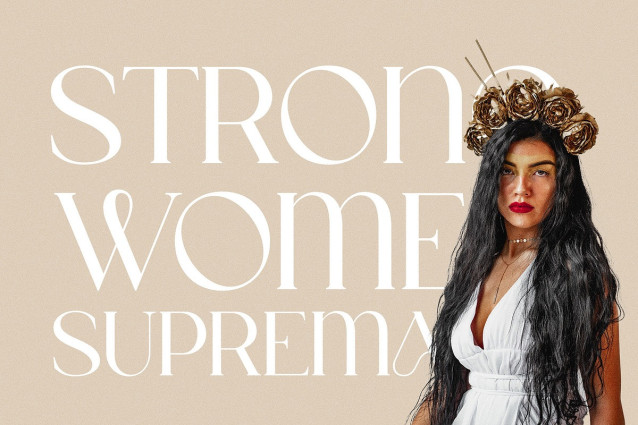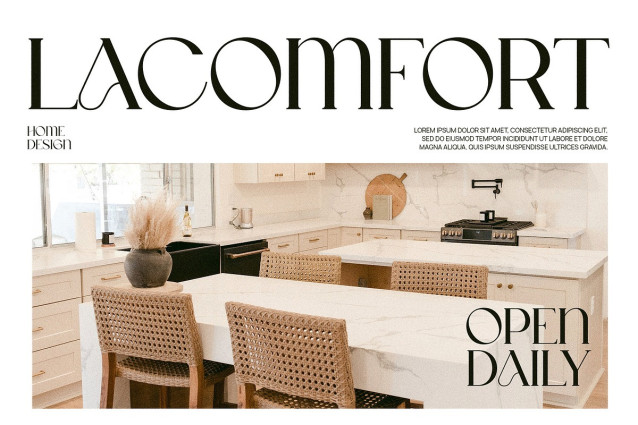
Worath Font
Worath Font is a new font that comes with variation of ligatures to create an elegant look. The counter strokes are created clearly to increase the level of understanding. The biggest appeal is on its simple yet charming ligature. The ligature becomes a decorative character that creates a unique impression. With thin lines, the ligature doesn’t harm its readability. Rather, it adds artistry to this new serif font. This font emphasizes the curve of flexible lines to form the letters. Besides that, the thickness gives a solid effect. The impression emerging from this serif font is an elegant impression. So, it is best magazines, newspapers, wedding designs, social media posts, and other relevant projects. If you want to beautify your digital design with a decorative text, the Beitro Elegant Serif could be a perfect font to choose. Anyone who is working with typography must try this font. It really meets various purposes and needs.